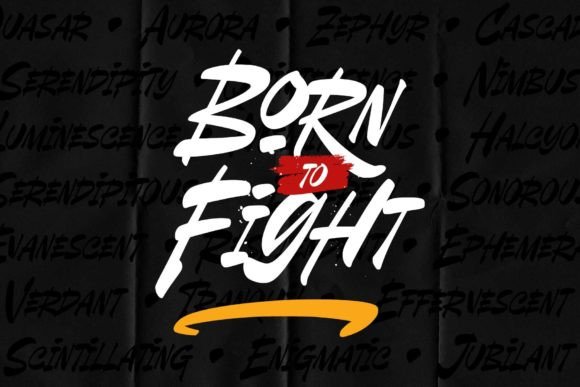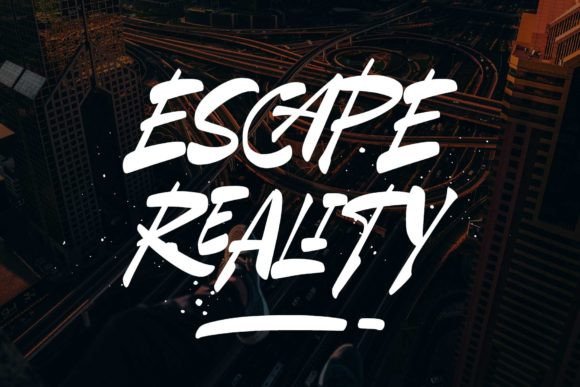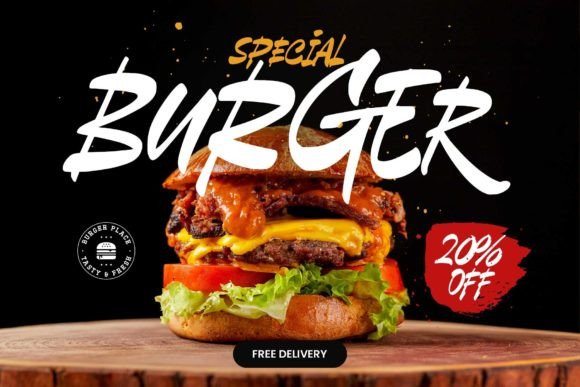
Introduction to Gangsta Destroyer Font
Have you ever been brainstorming a creative project, but struggled to find the perfect font to match your high-energy vibe? That’s exactly what happened to me when I stumbled upon the Gangsta Destroyer Font – a game-changing, freestyle brush font that’s about to take your designs to the next level.
With its bold strokes and real handwriting, the Gangsta Destroyer Font is an urban-inspired masterpiece that exudes bursting energy and a sense of rebellion. Whether you’re working on a sports-themed design, a streetwear campaign, or a bold graphic novel, this font is sure to be a valuable addition to your design resource arsenal.
Key Features of Gangsta Destroyer Font
- High-quality, bold font perfect for creative projects and designs that need a strong, edgy feel.
- Features a large character set, including uppercase and lowercase letters, numbers, and special characters.
- Unique, distressed texture adds a touch of grit and realism to any design, making it perfect for urban, graffiti, or street art-inspired projects.
Honest Review: Gangsta Destroyer Font
Here are some things that work well with this font:
- Unique style: The Gangsta Destroyer Font has a distinct, bold look that can add a touch of edginess to any design.
- ⚠️ Limited font styles: The Gangsta Destroyer Font is primarily a bold font, which may limit its versatility in certain design applications.
- ⚠️ Not suitable for all audiences: The font’s edgy style may not be suitable for all projects, particularly those targeting a younger or more conservative audience.
Overall, the Gangsta Destroyer Font is a solid design resource that can add a unique touch to your creative projects. While it may not be suitable for all applications, it’s definitely worth considering for those looking to add some attitude to their designs.
Use the Gangsta Destroyer Font to add a bold and edgy touch to your designs. Experiment with different font sizes, colors, and styles to create unique and eye-catching designs. Use the font’s transparent background to layer with other design elements and create complex and visually appealing designs.
The Gangsta Destroyer Font is perfect for a variety of creative projects, including:
Graphic design
Typography design
Web design
Print design
Branding and marketing materials